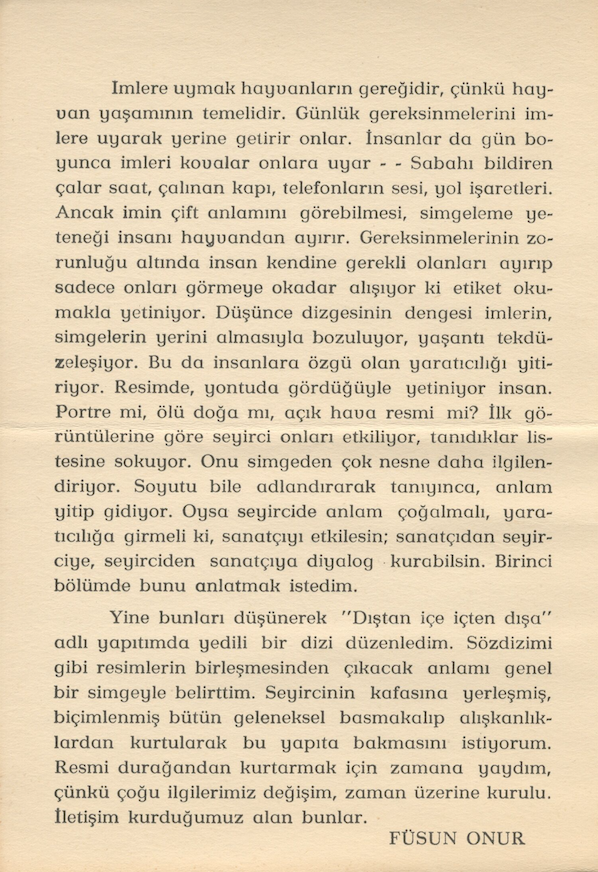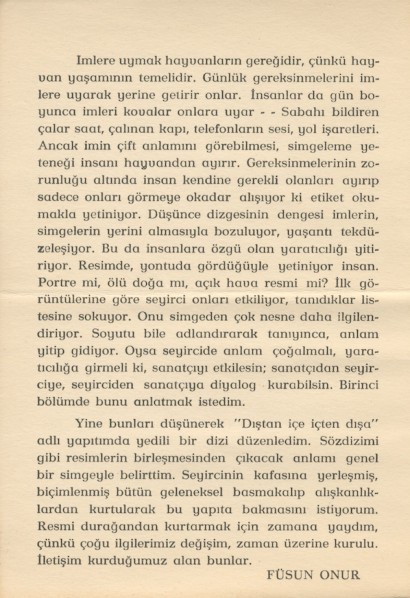
Serif font from Turkish newspaper (ca. 1975)
Hey! I found this article from a Turkish newspaper/catalog coming from the 70s. Any idea? I tried WhatTheFont!, the only result is Appleyard but it's not a 100% match. Thank you in advance!
It’s a Turkish version of Monotype’s
Prumyslava
, which provided the inspiration for Appleyard.